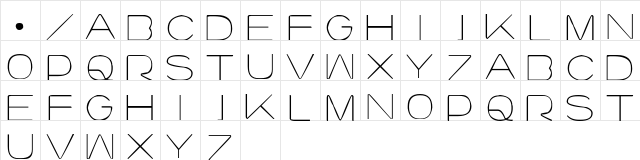
lourod Regular
Design Context for lourod Typeface
lourod takes a measured approach to typography — its balanced proportions and neutral character make it a reliable workhorse for both digital and print work.